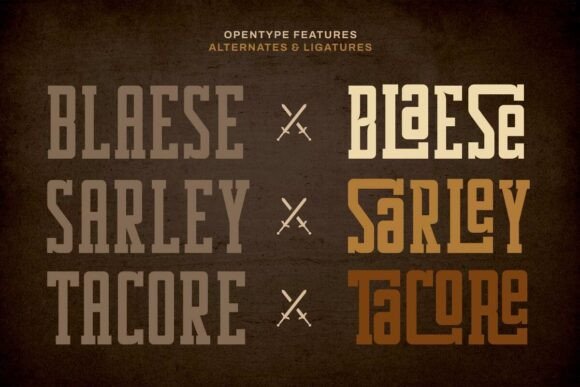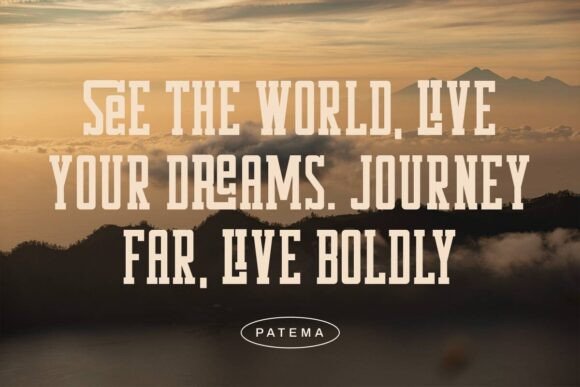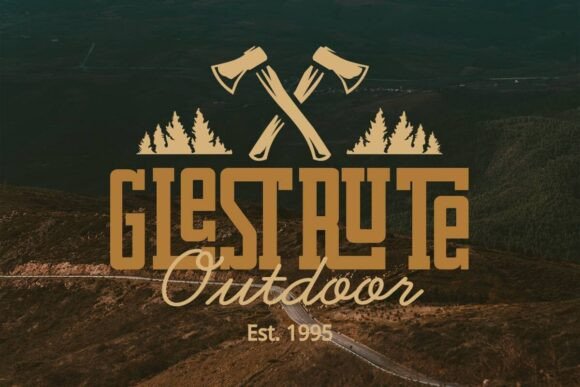
Introduction to Patema Font
Have you ever been working on a creative project, staring at a blank canvas, and suddenly, the perfect font pops into your mind? For designers, this moment is like finding a missing piece of a puzzle. It’s the spark that sets the tone for the entire project. And, for many, that spark comes in the form of a bold, elegant typeface like Patema Font.
Patema Font is more than just a stylish addition to your designs – it’s a game-changer. With its unique blend of slab serif and condensed letterforms, this font elevates your work to new heights, perfect for projects that demand both impact and sophistication. Whether you’re working on a branding project or creating a digital asset, Patema Font is the ideal design resource to take your work to the next level.
Key Features of Patema Font
- High-quality, unique font design ideal for creative projects, with a transparent background for versatile usage.
- Perfect for use in graphic design, digital art, and other creative projects where a distinctive font is required.
- Patema Font is a high-resolution font, ensuring that the text remains crisp and clear when scaled up or down.
- Its unique design makes it an excellent choice for designers looking to add a touch of elegance and sophistication to their work.
Honest Review: Patema Font
As a designer, I’m always on the lookout for high-quality design resources that can elevate my creative projects. The Patema Font is one such resource that caught my attention recently.
Here’s what works well:
- ✨ High-quality typography: The Patema Font offers crisp and clear typography, making it perfect for various design applications.
- ✨ Versatile: The font is highly versatile and can be used in a variety of creative projects, from logos to digital designs.
- ⚠️ Limited character set: The font only includes a limited character set, which may not be ideal for complex designs or multilingual projects.
- ⚠️ No transparent background: The font doesn’t offer a transparent background, which may limit its use in certain design applications.
Overall, I’m impressed with the Patema Font’s quality and versatility. While it may have some limitations, it’s an excellent resource for designers working on creative projects. If you’re looking for a high-quality font for your next design project, the Patema Font is definitely worth checking out.
Patema Font
The Patema Font is a unique and versatile design resource perfect for creative projects. With its transparent background and high quality, it can be easily integrated into various design platforms.
Tips for getting the most out of the Patema Font include experimenting with different font sizes and colors, and combining it with other design elements to create a unique look.
Common use cases for the Patema Font include logo design, branding, and graphic design. You can also use it to create a wide range of digital assets, from social media graphics to website headers.
Alternatives to Patema Font
Great Vibes is a beautiful, elegant script font that is perfect for creative projects such as invitations, posters, and logos. It features a high-quality design and is available for free download. When to use: Use Great Vibes for projects that require a touch of sophistication and elegance. Comparison to Patema Font: Great Vibes is more elegant and refined compared to Patema Font, which is more playful and casual.
By incorporating Patema Font into your creative endeavors, you’ll gain access to a world of design possibilities. Its versatility, combined with its high quality, makes it an essential addition to any designer’s toolkit. So why wait? Download Patema Font today and discover the limitless potential it has to offer. With its free download availability, you have nothing to lose and everything to gain. Take the first step towards elevating your design skills and unleash your creativity with Patema Font.